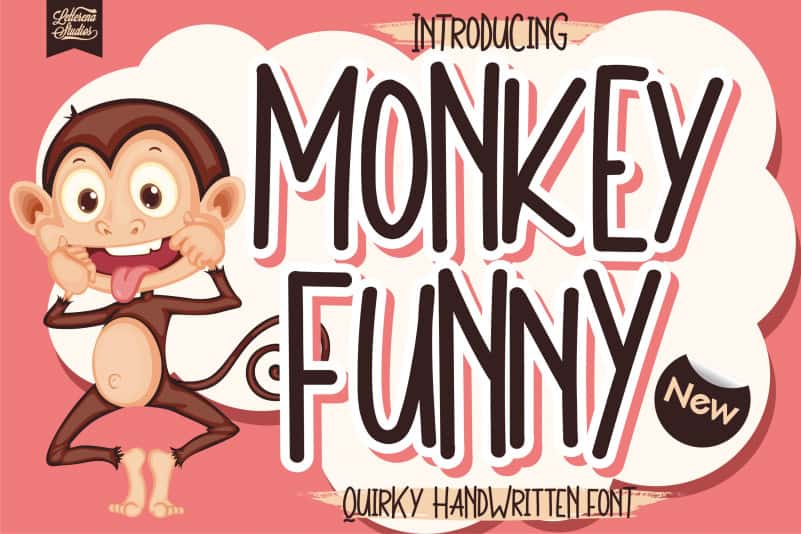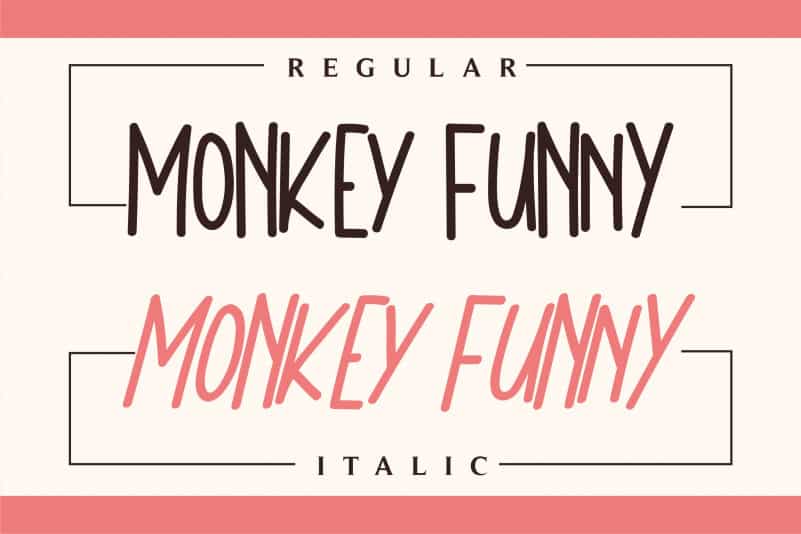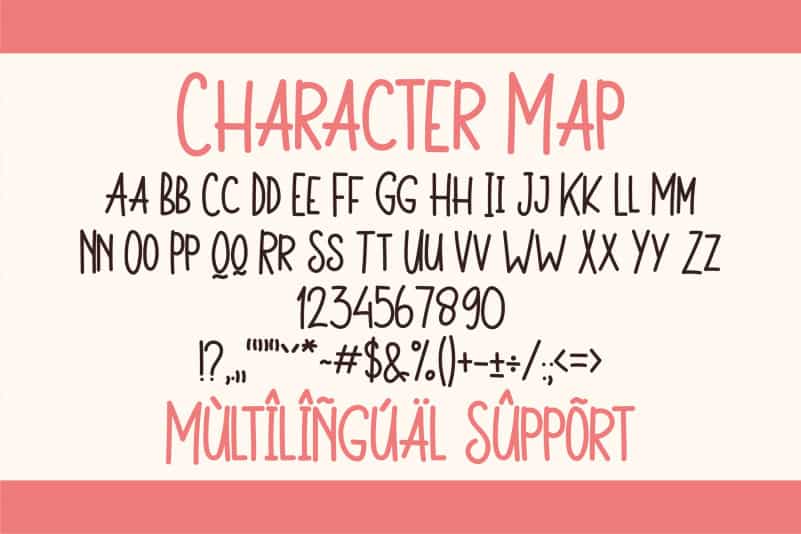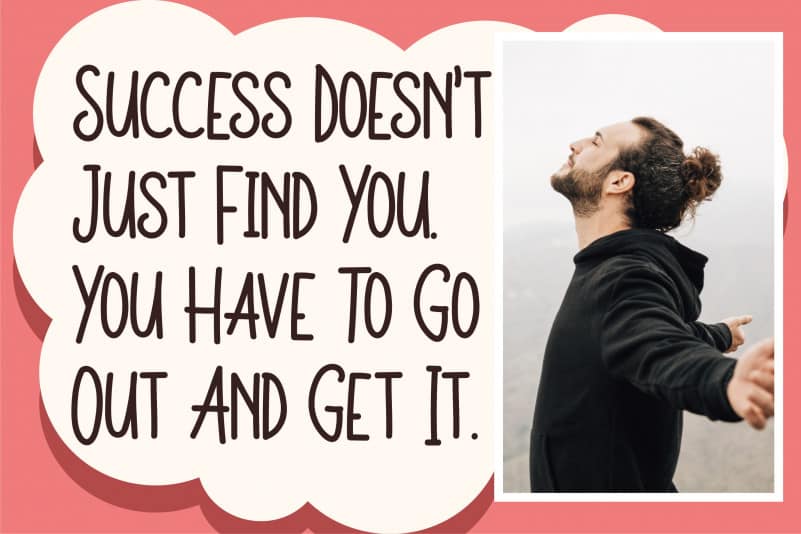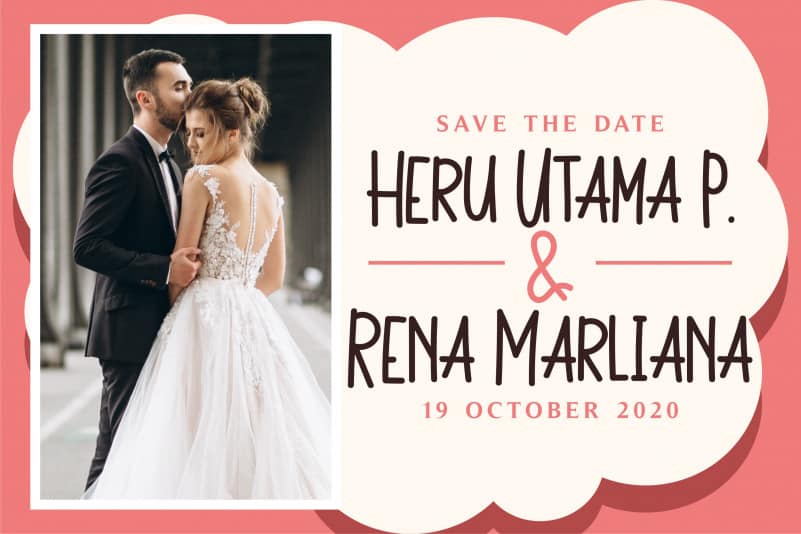
Monkey Funny Display Font
Monkey Funny Display Font is a simple and natural handwritten font. Thin and tall, this font is ideal for a variety of designs, both formal and informal.